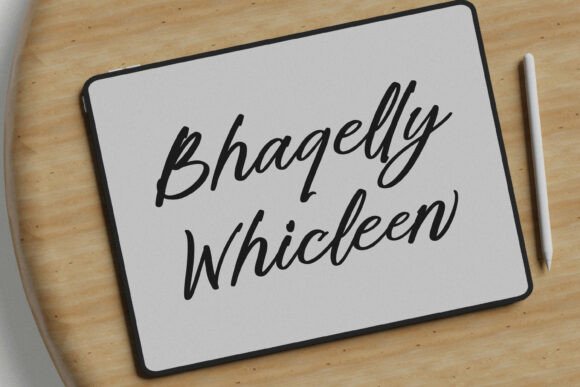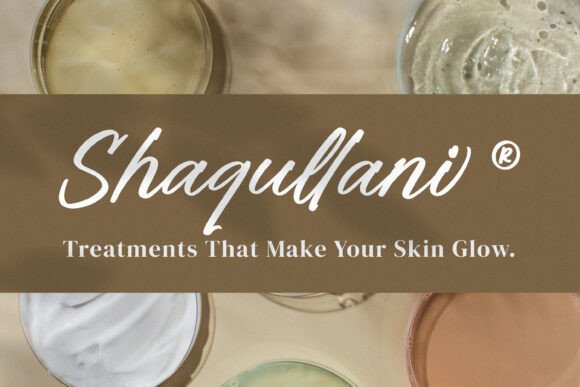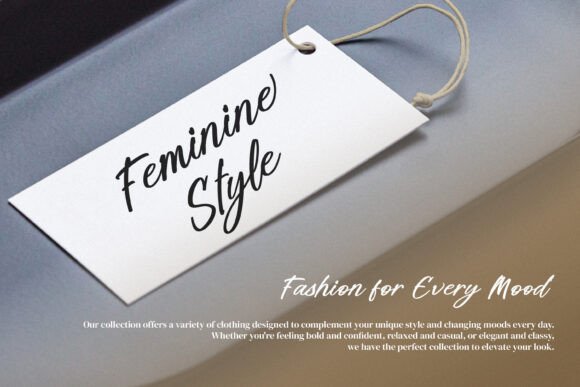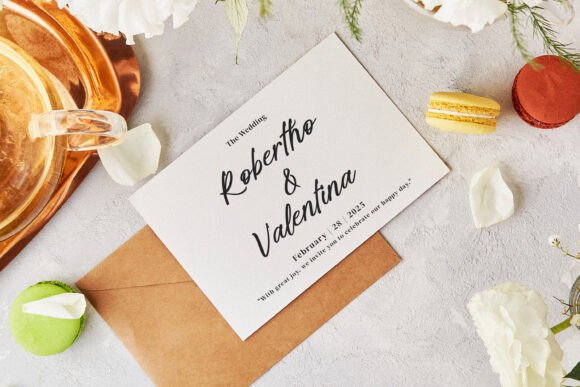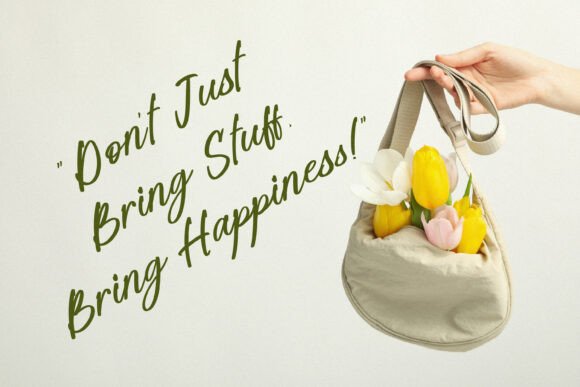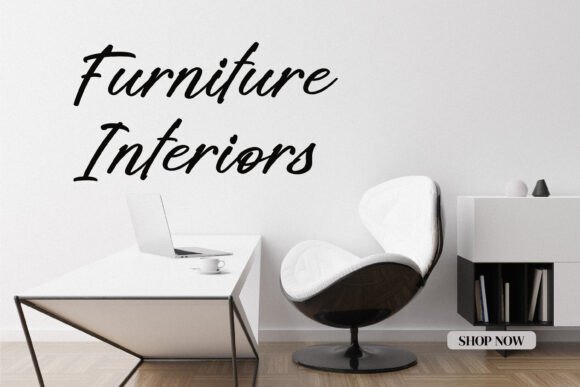
Unleash the Charm of Handwritten Design with Briliany Font
Have you ever stumbled upon an old, handwritten note that evokes memories and emotions? Maybe it was a love letter, a birthday card, or a simple thank-you note. Whatever it was, you probably couldn’t help but feel a sense of warmth and connection to the person who wrote it. As designers, we often strive to recreate that same emotional response in our work, and that’s where Briliany Font comes in.
Briliany Font is a beautiful handwritten script font that adds a touch of elegance and charm to any design. Its smooth, flowing letters make it perfect for invitations, greeting cards, or any project that needs a warm, handwritten look. Whether you’re a seasoned designer or just starting out, Briliany Font is a valuable addition to your toolkit, offering endless possibilities for creative expression.
• Unique Characteristics: Briliany Font features a unique blend of modern and classic elements, with intricate details and subtle nuances that set it apart from other fonts.
Briliany Font Review
Overall, I think Briliany Font has some great qualities that make it stand out, but it also has some limitations that need to be addressed.
• Unique style: Briliany Font has a distinctive and quirky feel that can add some personality to a design.
• Good legibility: Despite its unusual design, the font is still easy to read, even at smaller sizes.
• Comprehensive character set: The font includes a wide range of characters, including Latin, Cyrillic, and Greek scripts.
• Not ideal for body text: Due to its unusual design, Briliany Font may not be the best choice for large blocks of text, as it can be tiring to read.
• Some characters are inconsistent: While the font includes a wide range of characters, some of them are not consistently designed, which can make the font look amateurish.
Overall impression
While Briliany Font has some great qualities, its limitations make it better suited for specific design projects where its unique style can shine. With some tweaks to its design and availability, it could be a more versatile and effective font.
Tips: Use Briliany Font for headings and titles to add a touch of elegance to your designs. Experiment with different font sizes and colors to create visual interest.
Tips: Use Briliany Font for typography-heavy designs, such as posters or brochures. Experiment with layer blending modes and effects to add depth and texture.
Tips: Use Briliany Font for presentations and reports to add a touch of sophistication. Experiment with font sizes and colors to create visual hierarchy.
Briliany Font is suitable for a wide range of applications, including:
• Wedding invitations and stationery
• Business cards and letterheads